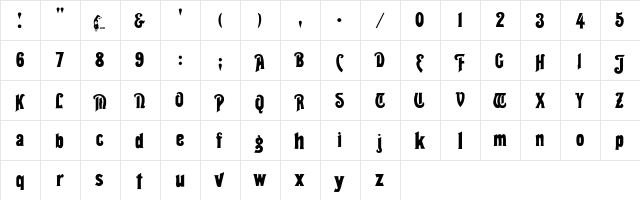
Brittainy Regular Font Preview
Brittainy Regular
Brittainy Regular Font Details
Design Context for Brittainy Typeface
Brittainy is a composed and adaptable typeface that performs quietly and consistently across a wide range of design contexts.